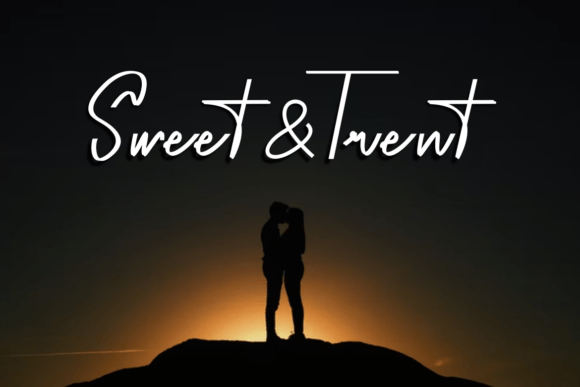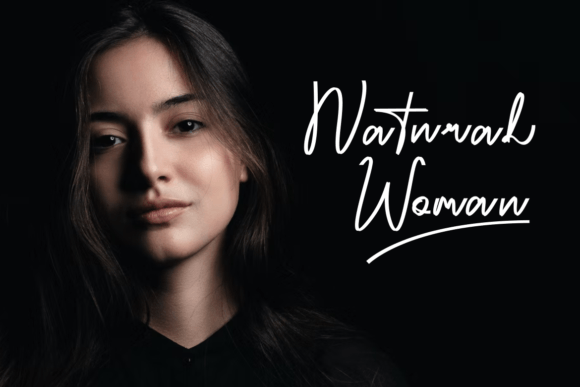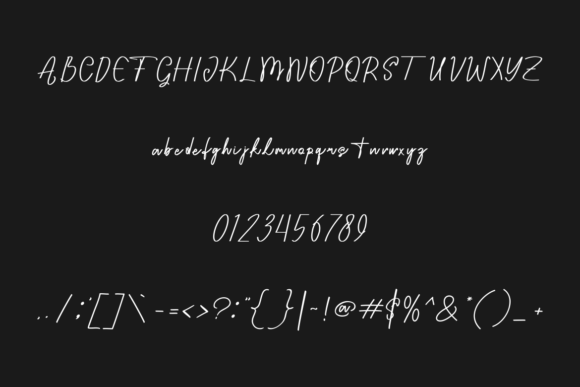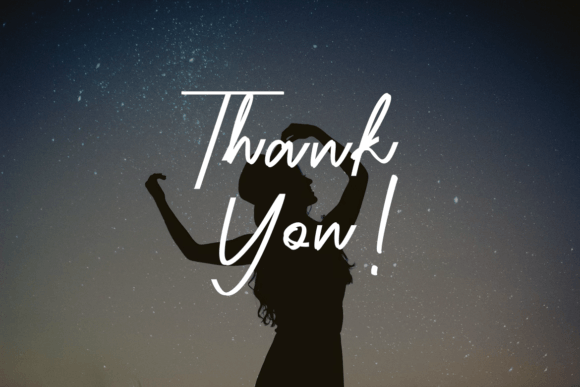
Fettrix Font: Elevate Your Designs with Elegant Handwritten Style
Fettrix is a stunning handwritten font that has been making waves in the design community with its natural and elegant style. This gorgeous font is perfect for designers and crafters looking to add a touch of sophistication and authenticity to their creative projects. In this article, we’ll dive into the world of Fettrix Font, exploring its features, benefits, and uses, as well as provide tips on how to incorporate it into your designs.
The Story Behind Fettrix Font
Fettrix Font is a carefully crafted handwritten font that boasts a unique and distinctive style. Its natural and elegant appearance makes it perfect for a wide range of design applications, from branding and advertising to packaging and digital media. The font’s creator aimed to design a font that would convey a sense of warmth, friendliness, and approachability, making it ideal for designers looking to add a personal touch to their work.
Key Features of Fettrix Font
Fettrix Font comes with a range of features that make it a versatile and practical choice for designers. Some of its key features include:
- Handwritten style: Fettrix Font boasts a beautiful handwritten style that adds a touch of elegance and sophistication to any design.
- Natural appearance: The font’s natural appearance makes it perfect for designs that require a personal and authentic touch.
- High-quality: Fettrix Font is a high-quality font that is designed to deliver exceptional results in a variety of design applications.
- Easy to read: The font is easy to read, making it perfect for body text, headings, and titles.
Benefits of Using Fettrix Font
Fettrix Font offers a range of benefits for designers and crafters, including:
- Unique and distinctive style: Fettrix Font’s unique and distinctive style sets it apart from other fonts, making it perfect for designers looking to create something truly original.
- Time-saving: The font’s high-quality design and ease of use make it a time-saving solution for designers who need to produce high-quality work quickly.
- Versatility: Fettrix Font is a versatile font that can be used in a wide range of design applications, from print to digital media.
Using Fettrix Font in Your Designs
Fettrix Font is easy to use and can be incorporated into your designs in a variety of ways. Here are some tips to get you started:
- Pair it with other fonts: Fettrix Font pairs well with other fonts, making it perfect for designs that require a combination of fonts.
- Use it for headings and titles: The font’s elegant style makes it perfect for headings and titles, adding a touch of sophistication to your designs.
- Add it to your branding: Fettrix Font can be used to create a unique and distinctive brand identity that sets your business apart from others.
- Experiment with different colors: The font’s natural appearance makes it perfect for designs that require a pop of color, so don’t be afraid to experiment with different colors and combinations.
Here are some additional tips for designers and crafters looking to get the most out of Fettrix Font:
- Use it for digital media: Fettrix Font is perfect for digital media, including social media graphics, blog posts, and website designs.
- Experiment with different sizes: The font’s elegant style makes it perfect for designs that require a range of font sizes, from small body text to large headings.
- Pair it with images: Fettrix Font pairs well with images, making it perfect for designs that require a combination of text and images.
- Use it for crafting projects: The font’s natural appearance makes it perfect for crafting projects, including handmade cards, invitations, and scrapbooking.
| Author | cozzdesign |
Fettrix Font is a stunning handwritten font that is perfect for designers and crafters looking to add a touch of elegance and sophistication to their creative projects. With its natural and elegant style, high-quality design, and ease of use, Fettrix Font is a versatile and practical choice for a wide range of design applications. Whether you’re looking to create a unique brand identity, add a personal touch to your designs, or simply want to try something new, Fettrix Font is a great choice.